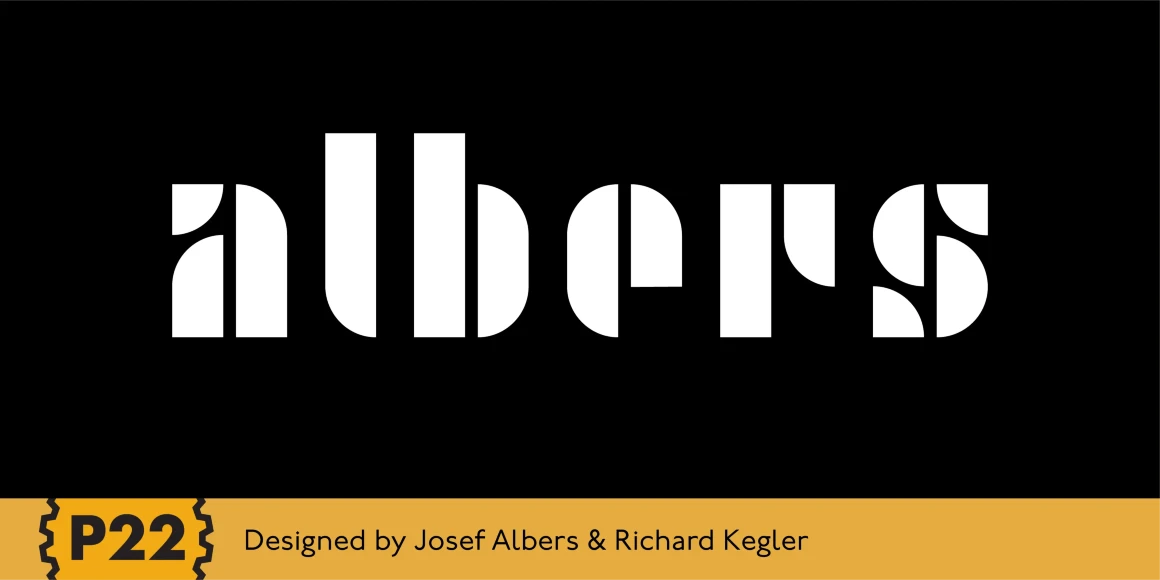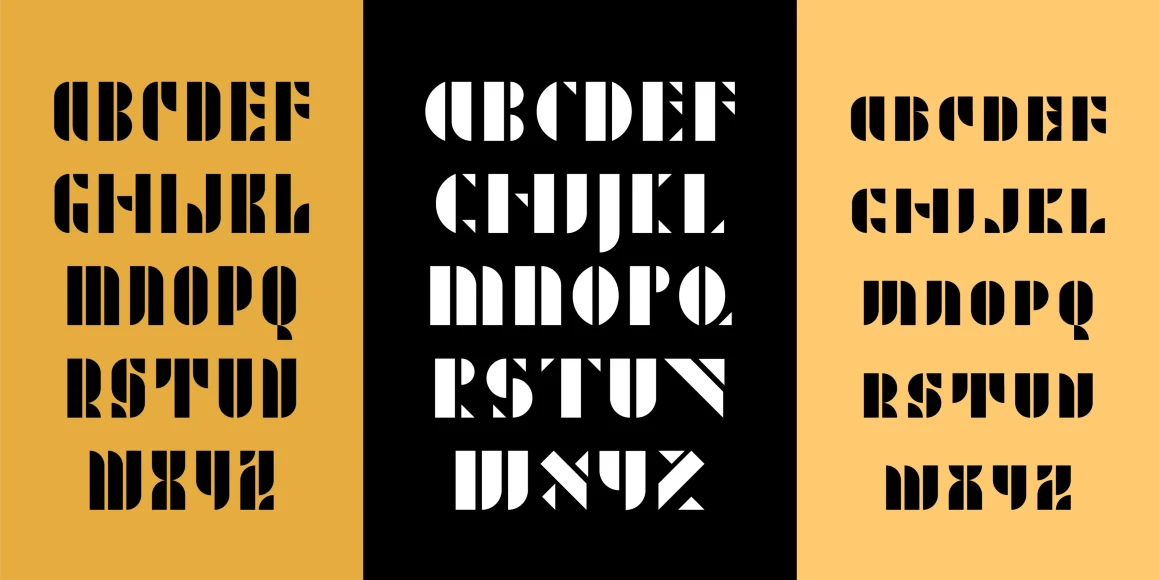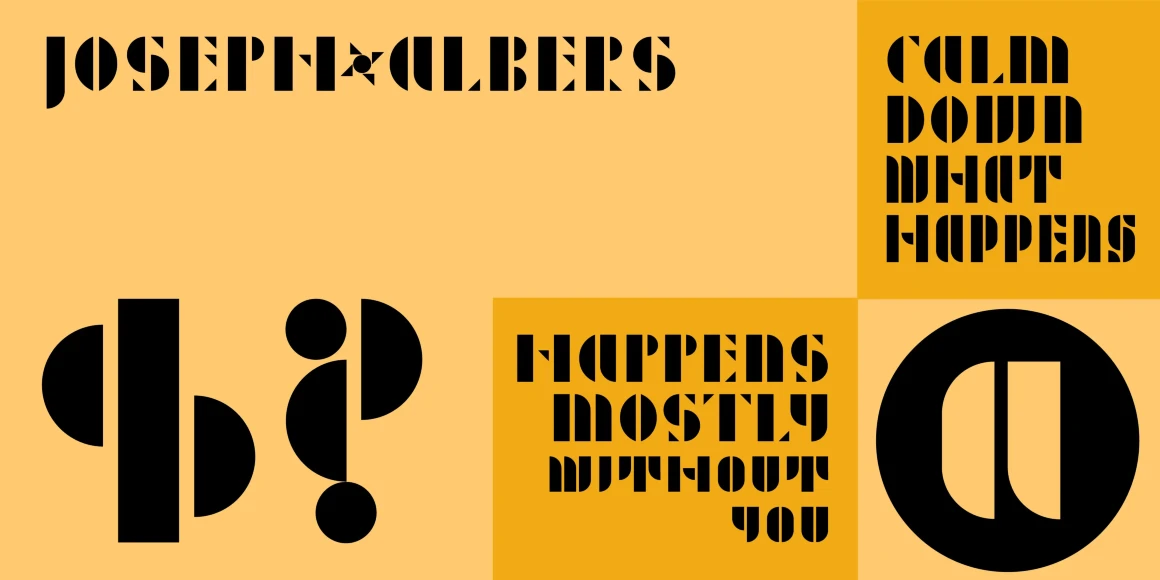
Albers
This set of typefaces was produced in conjunction with the Guggenheim Museum and the Josef Albers Foundation. Josef Albers was one of the most important artists and educators of the twentieth century. He was a member of the Bauhaus first as a student and then as a teacher from 1920 until its closing in 1933. He then moved to America, where he continued making art and teaching at numerous institutions until his death. Known principally as an abstract painter, he was also an accomplished designer, draftsman, typographer, and photographer. His works explore permutations of form, color, and perception using a restricted visual vocabulary. Created when he was at the Bauhaus, his Kombinationschrift alphabets exemplify the school’s ethos. Using 10 basic shapes based on the circle and the rectangle, he created a system of lettering that was meant to be efficient, easy to learn, and inexpensive to produce. These 10 shapes in combination could form any letter or number. The letterforms of this computer version were taken directly from Albers’ drawings and notes.
Designed by Josef Albers & Richard Kegler
Albers One
Albers Two
Albers Three